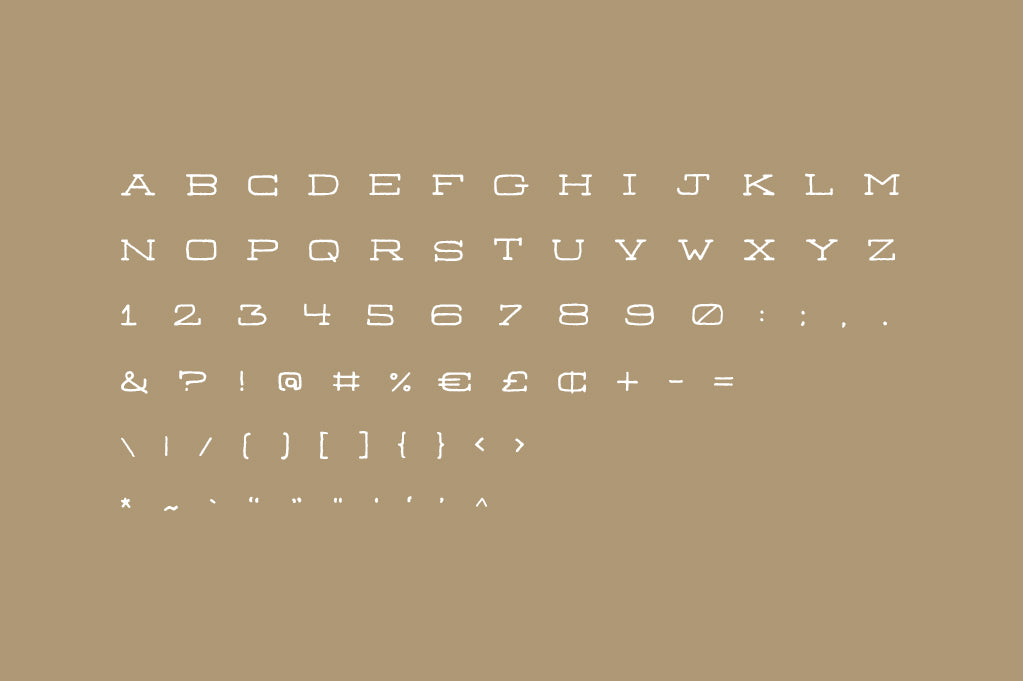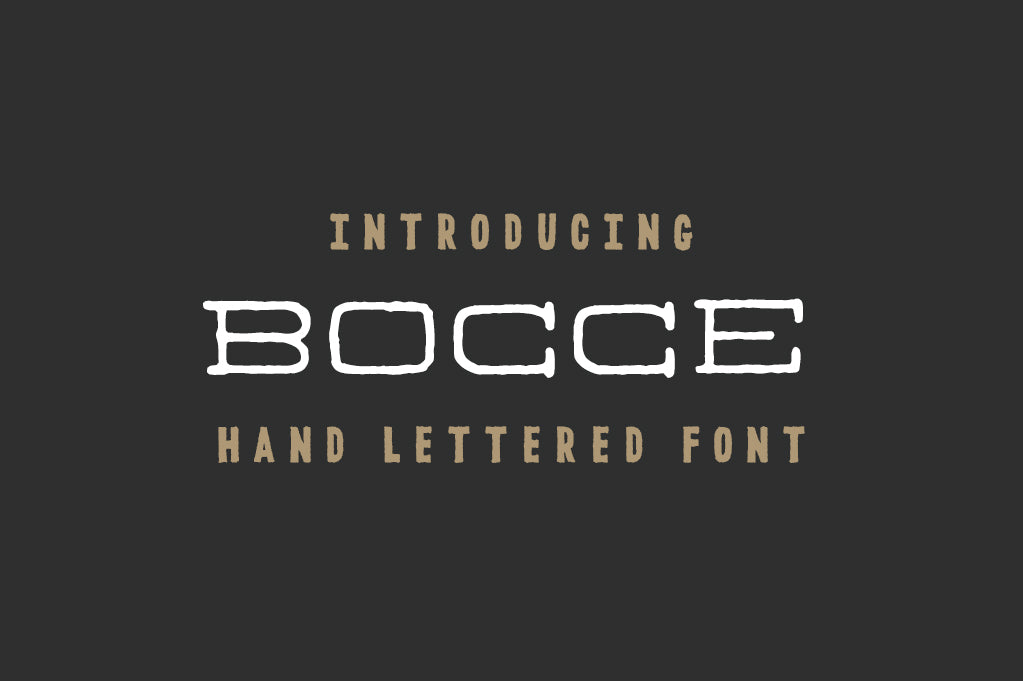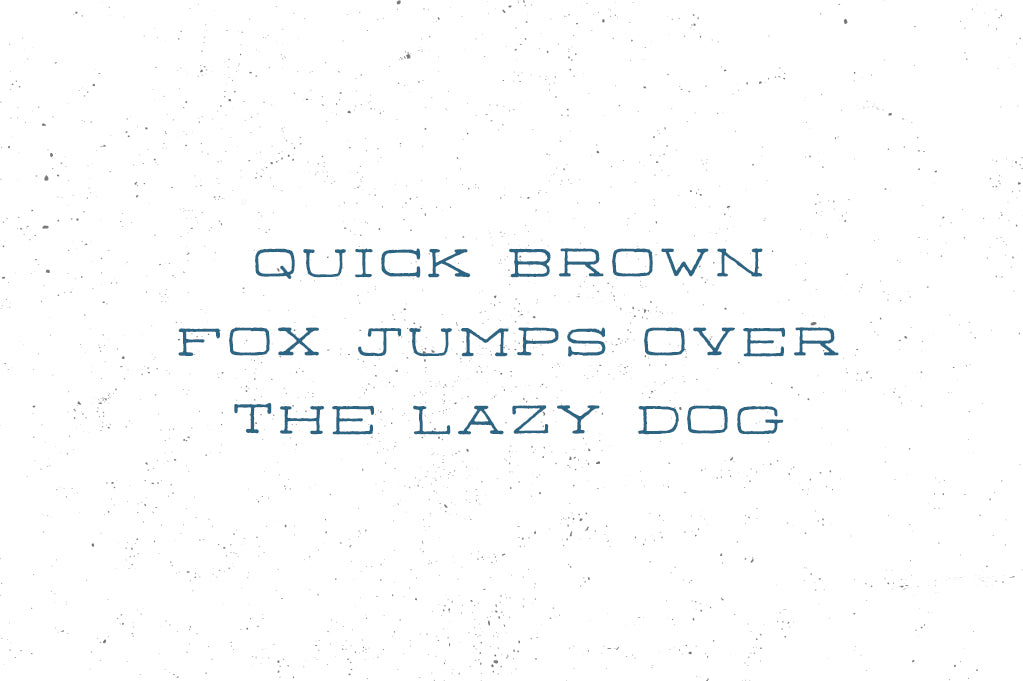
Bocce Font
Presenting Bocce, a thin hand lettered serif display font.
With all the natural hand-crafted imperfections retained, this monogram style font is perfect for the logo, badge, t-shirt or design that needs a unique hand lettered display typeface.
Every single character on a U.S. keyboard is included (plus the British Pound symbol, the Euro symbol, and the U.S. cent symbol.) 72 characters in all.